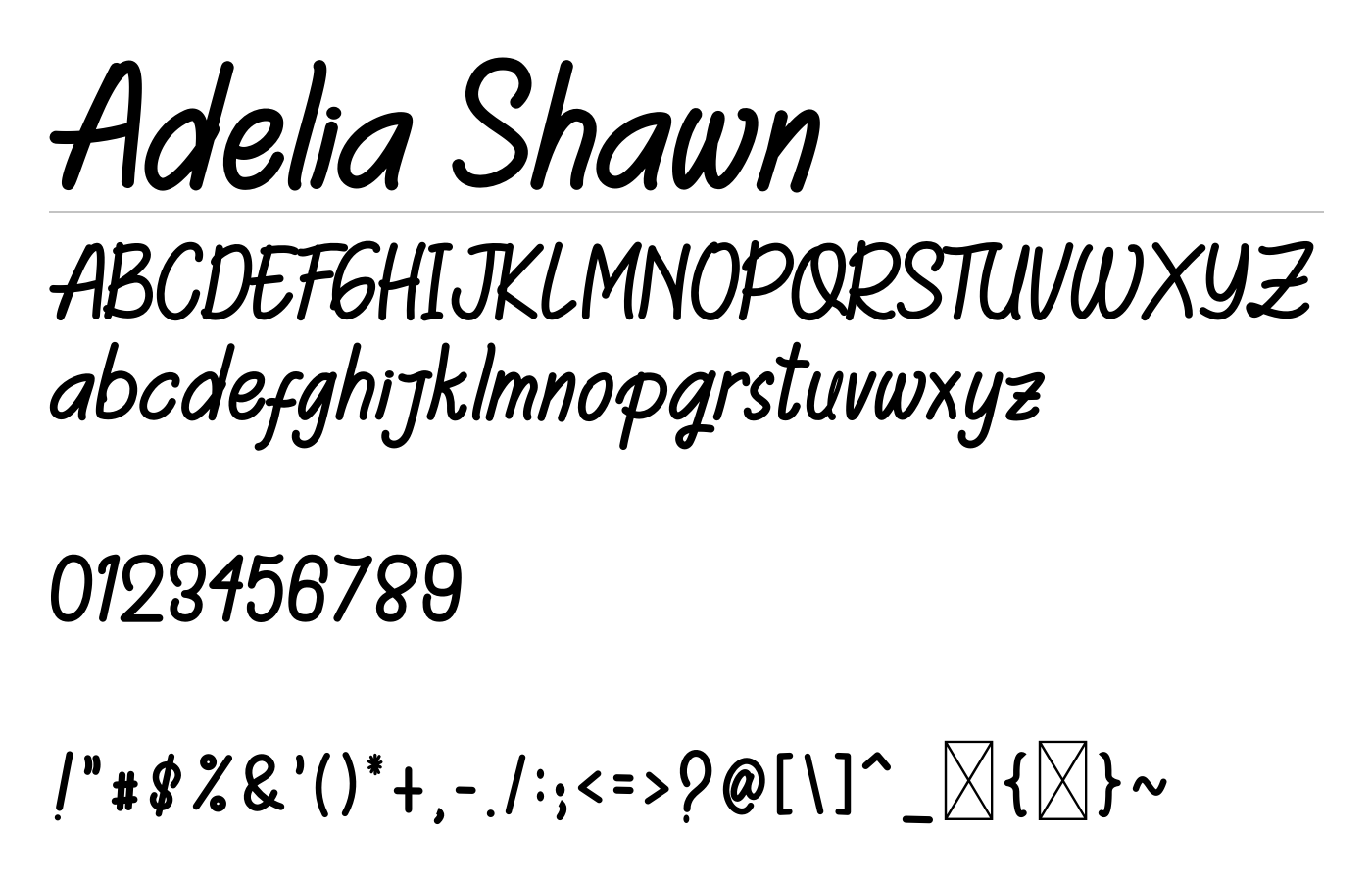
Adelia Shawn is a casual, handwritten script font with a friendly and approachable feel. Its smooth, slightly slanted strokes and medium weight give it a natural, relaxed style ideal for personal, creative, and informal branding. This font works well for invitations, social media graphics, and playful logos where a warm, personable touch is desired.
Adelia Shawn Font